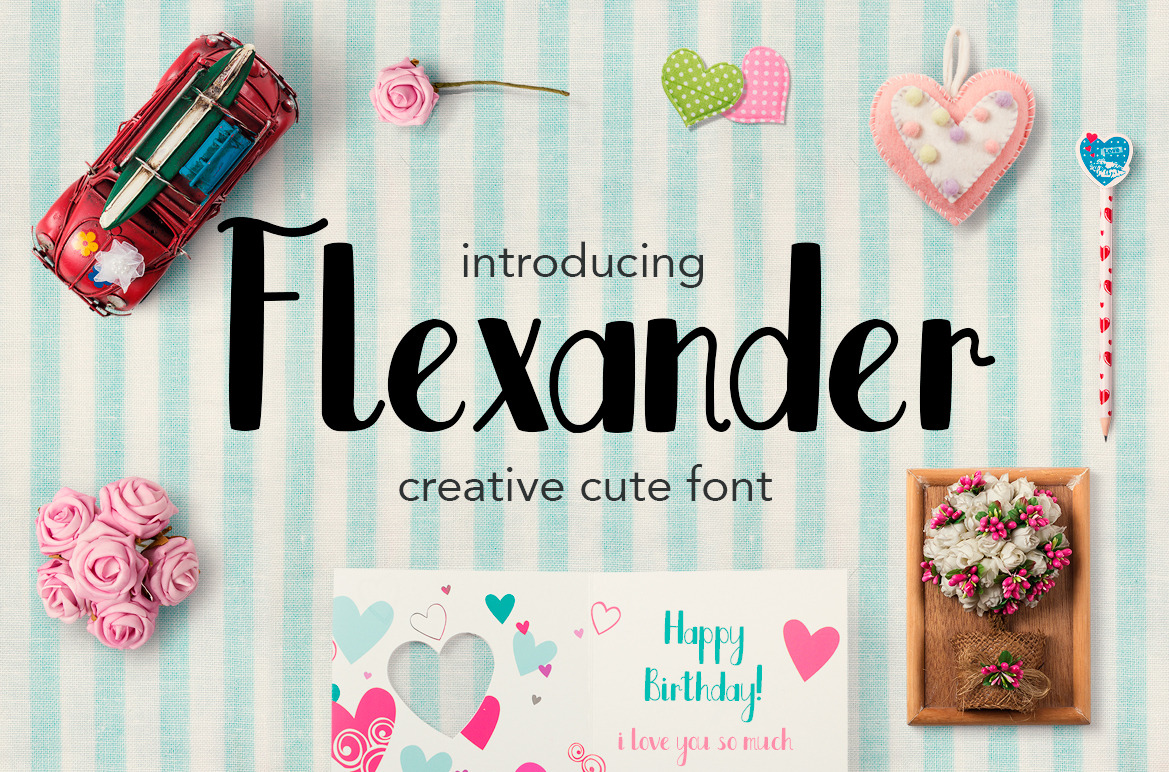
Flexander Font
Flexander is a new cute and creative font with a handmade style and decorative character. Perfect for cards, invitations, branding, posters, prints and quotes. Flexander font will look great for children books, funny greeting cards and cute logotypes